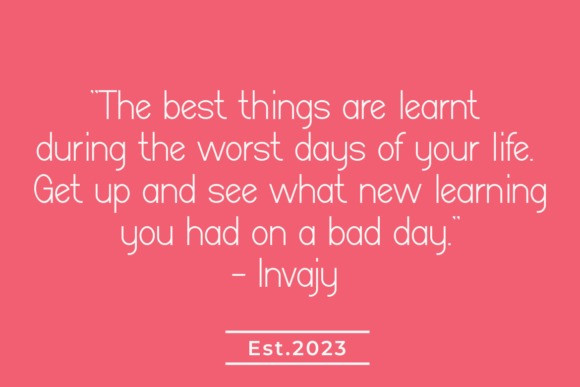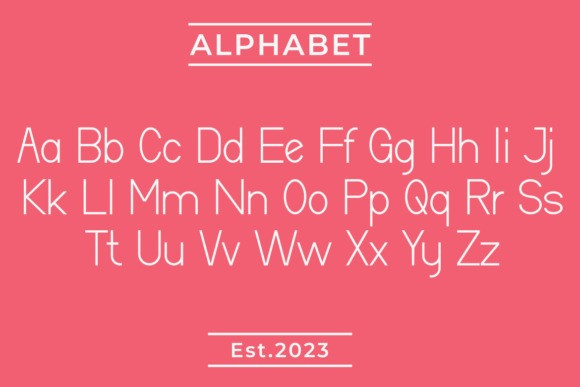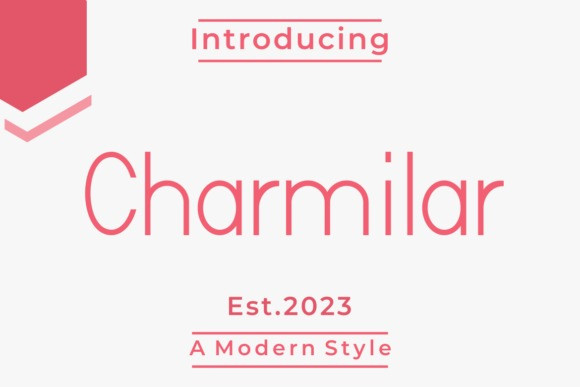
Charmilar Font
Charmilar Font is a modern Sans Serif font with thin characters. You can use this lovely typeface for quotes, branding, fashion, magazines, websites, fashion, clothing, and more.